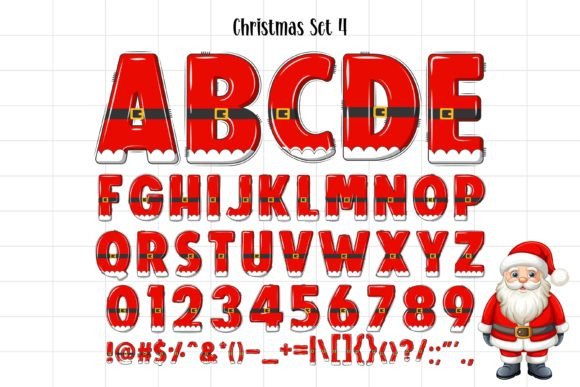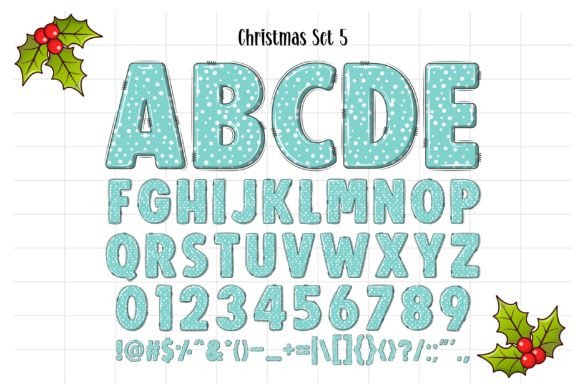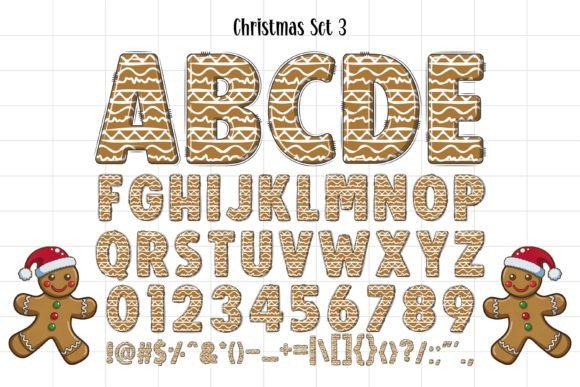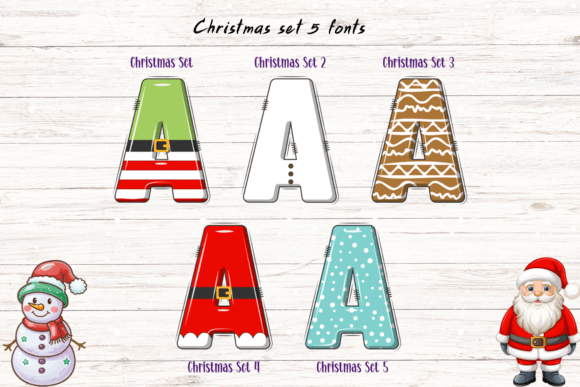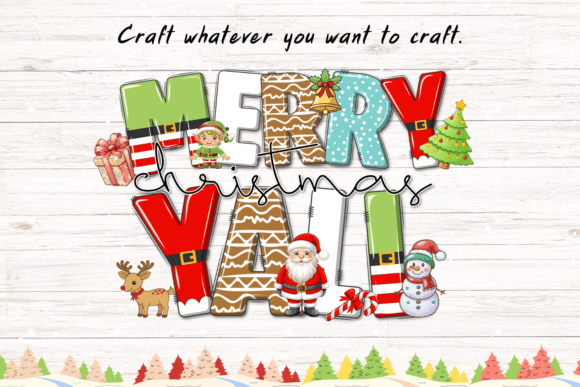
Introduction to Christmas Set Font
Indulge in a festive ambiance with our ‘Christmas’ font – a charming, colorful typographic delight.
Expertly designed to add a touch of holiday cheer to any design, sweater, craft, or greeting card, ‘Christmas’ is your go-to option for instantly amplifying the warmth and joy of your projects Its adorable aesthetics will breathe Yuletide magic into your creations, showing Christmas isn’t just a season, it’s a feeling, embodied by this vibrant font.
Key Features of Christmas Set Font